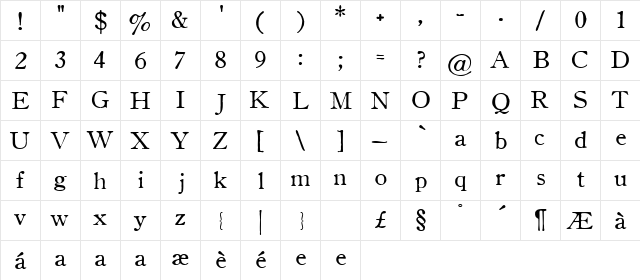
OldStyle 1 HPLHS
Design Context for OldStyle 1 Typeface
OldStyle 1 carries the refined structure of traditional serif typography, with bracketed terminals and considered proportions that communicate credibility and craft.